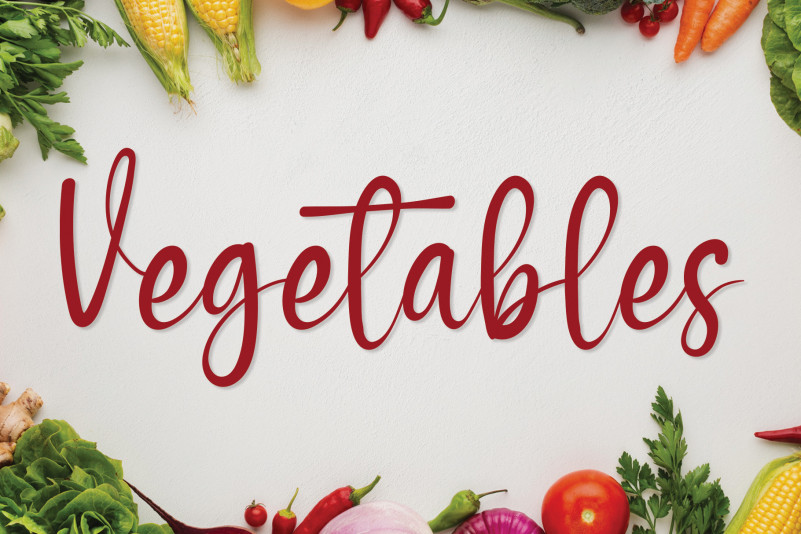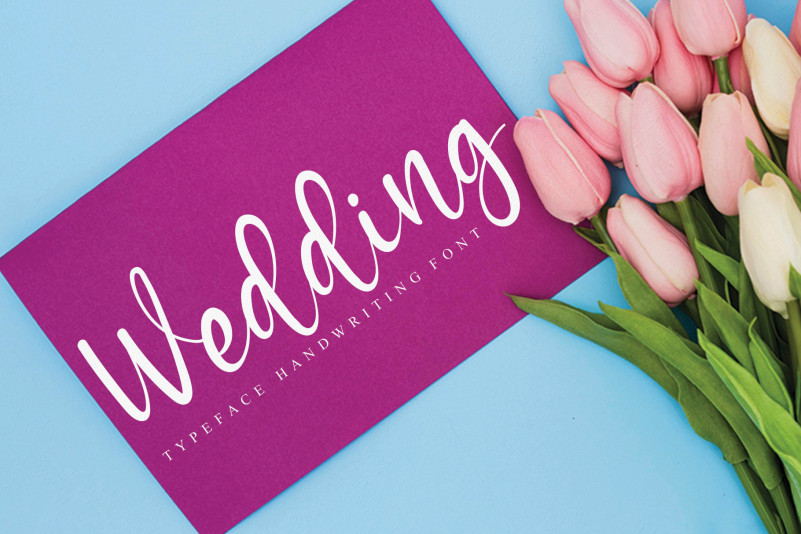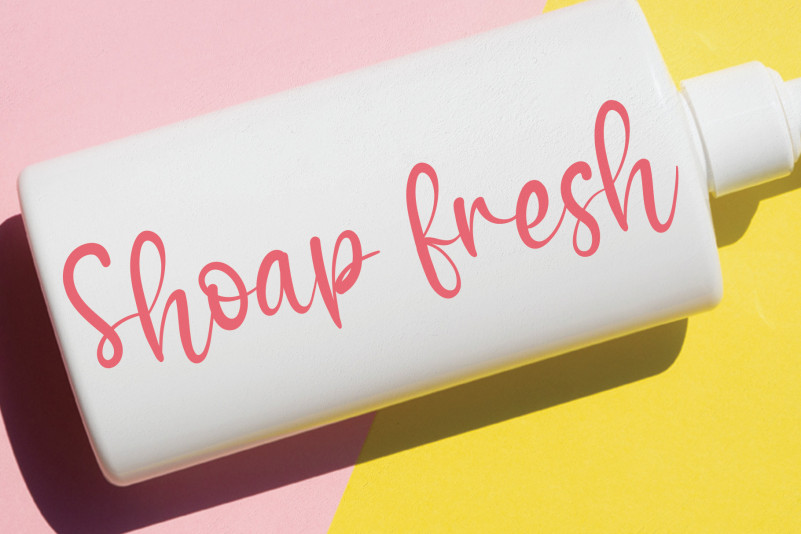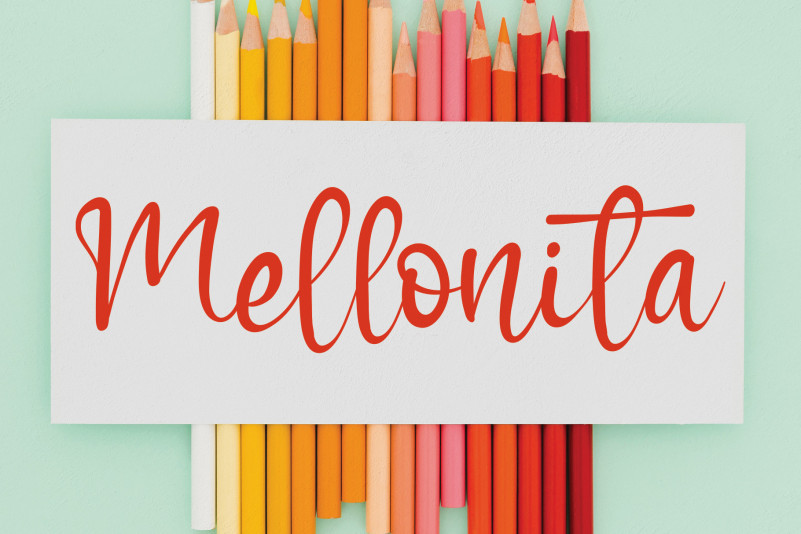
Winter House Script Font
Winter House Script Font is a bold and friendly handwritten font. Use it to make your ideas even more realistic and create spectacular designs!